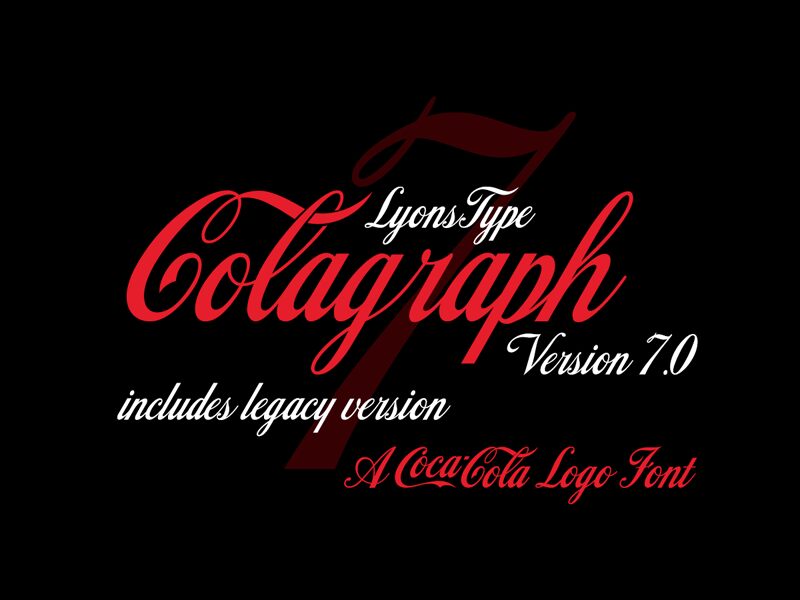
Colagraph, formerly LT Drink, is a typeface based on Coca-Cola wordmark. This typeface also tends be a revival of the partially seen Cola Script font (designed by Bob Alonso of BA Graphics in 1974), but with a variety of additions such as international language support, stylistic alternates (swashes), and Cyrillics. Stylistic alternates can also be accessed in Notepad. To access them, type (letter) ~ for upper swash, and (letter) _ for lower swash.
Colagraph Medium
A revival of the Cola Script typeface by Bob Alonso (BA Graphics).